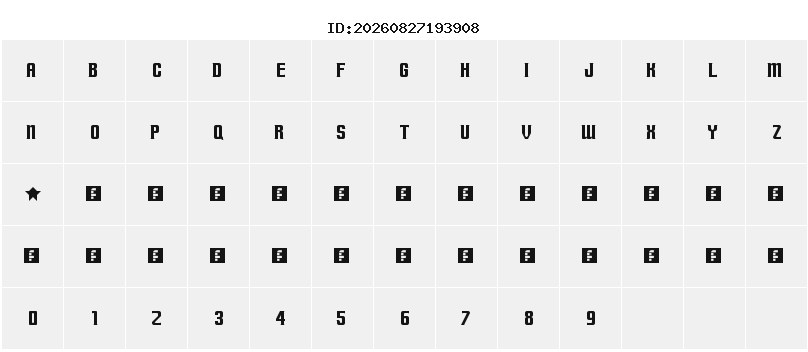
• Font Name: terminally chisseled
• Font ID: FontStruct terminally chisseled
• Full Font Name: terminally chisseled Regular
• PostScript Name: terminally-chisseled
• Character Count: 49
• Designer: bws1977
• Description: This font was created using FontStruct (http://fontstruct.fontshop.com)
About terminally chisseled.ttf
terminally chisseled.ttf is a modern, elegant sans-serif font designed for ultimate readability and visual harmony. Perfect for branding, headlines, web design, and print materials.